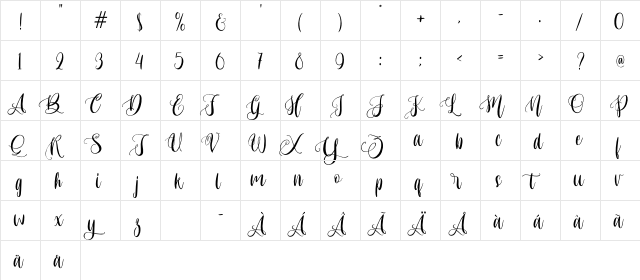
Resemhary Regular
| Foundry | Allmostudio |
| Designer | Muhammad Nur Alamsyah |
Design Context for Resemhary Typeface
Resemhary is a composed and adaptable typeface that performs quietly and consistently across a wide range of design contexts.